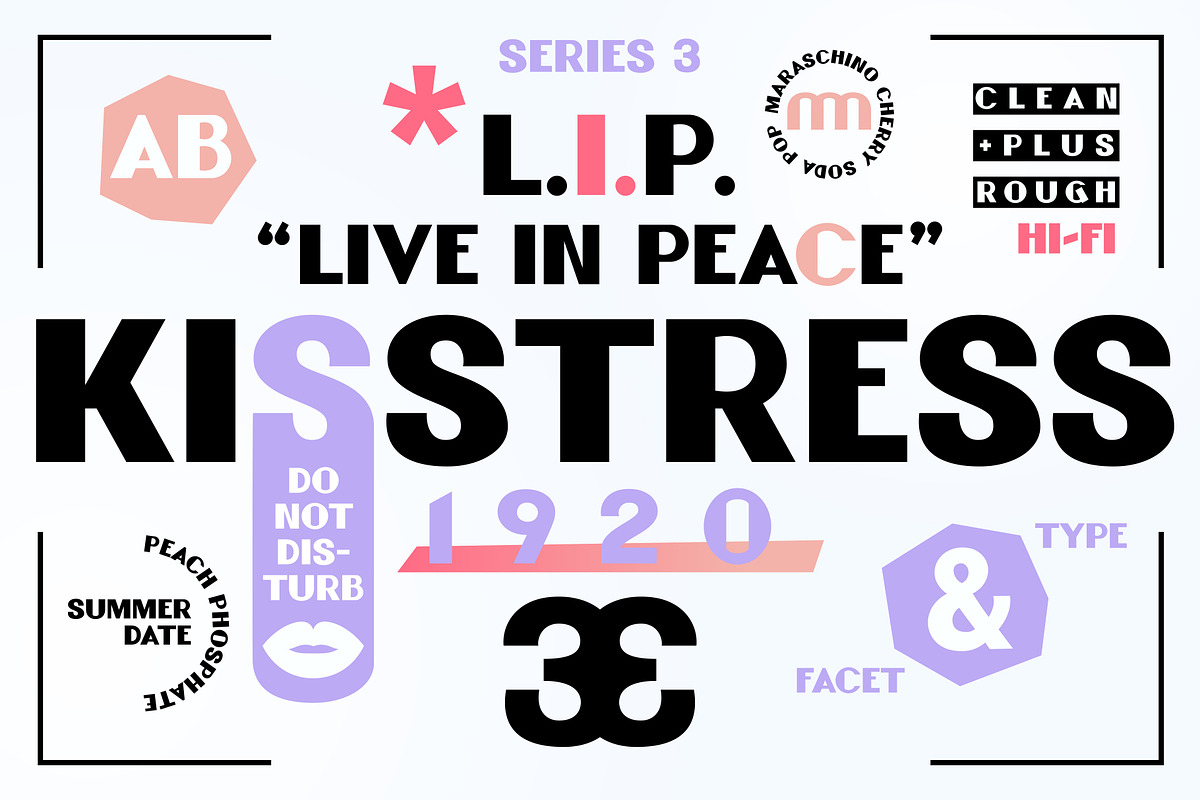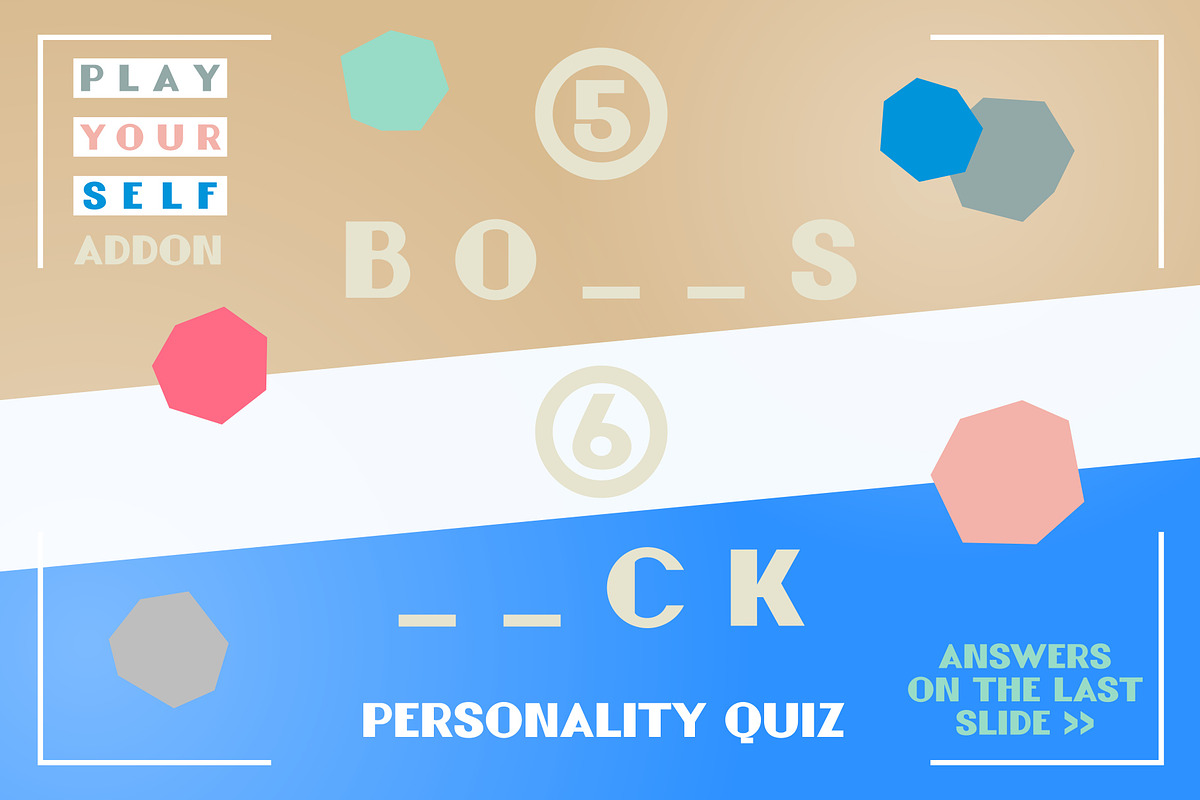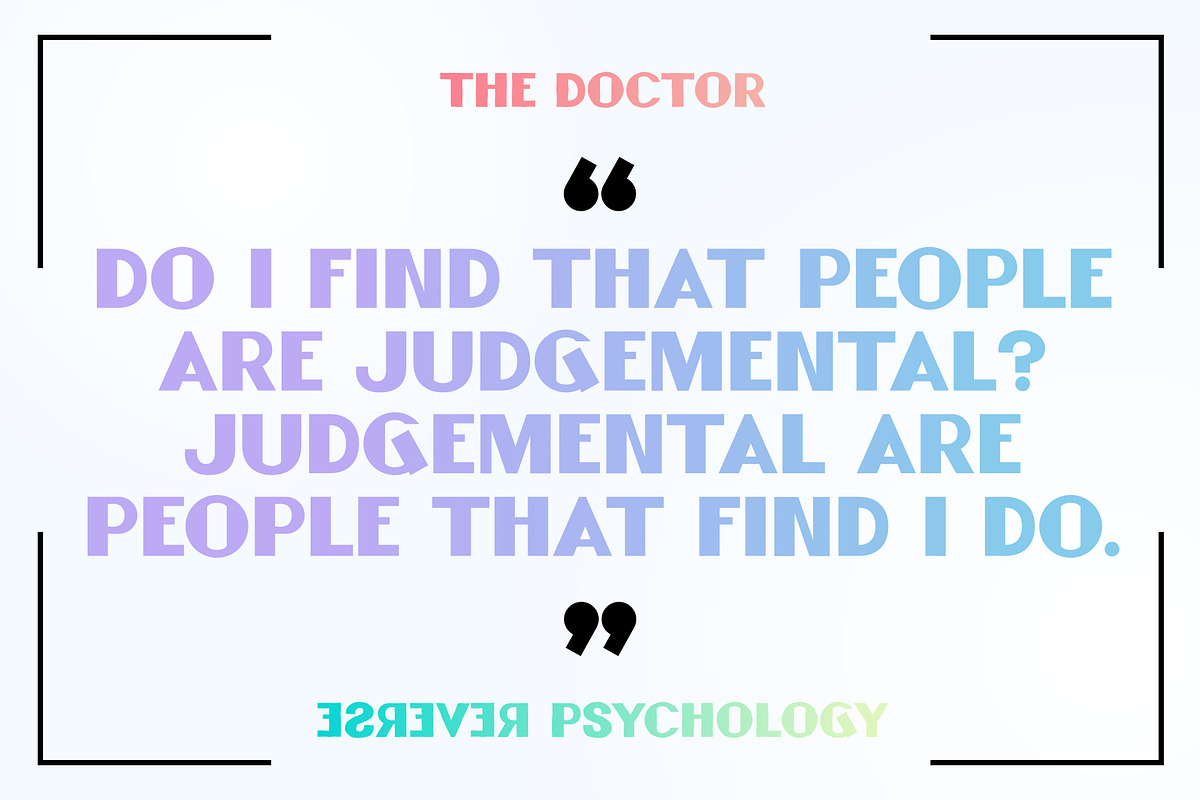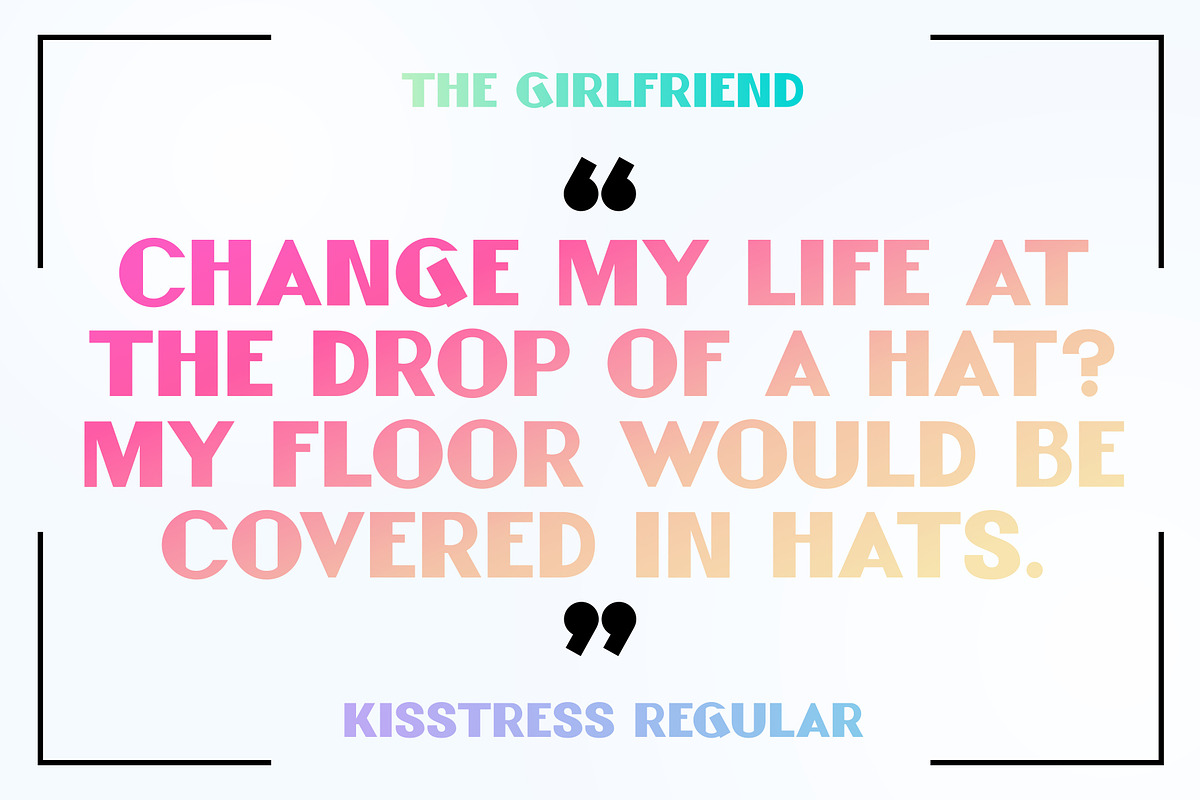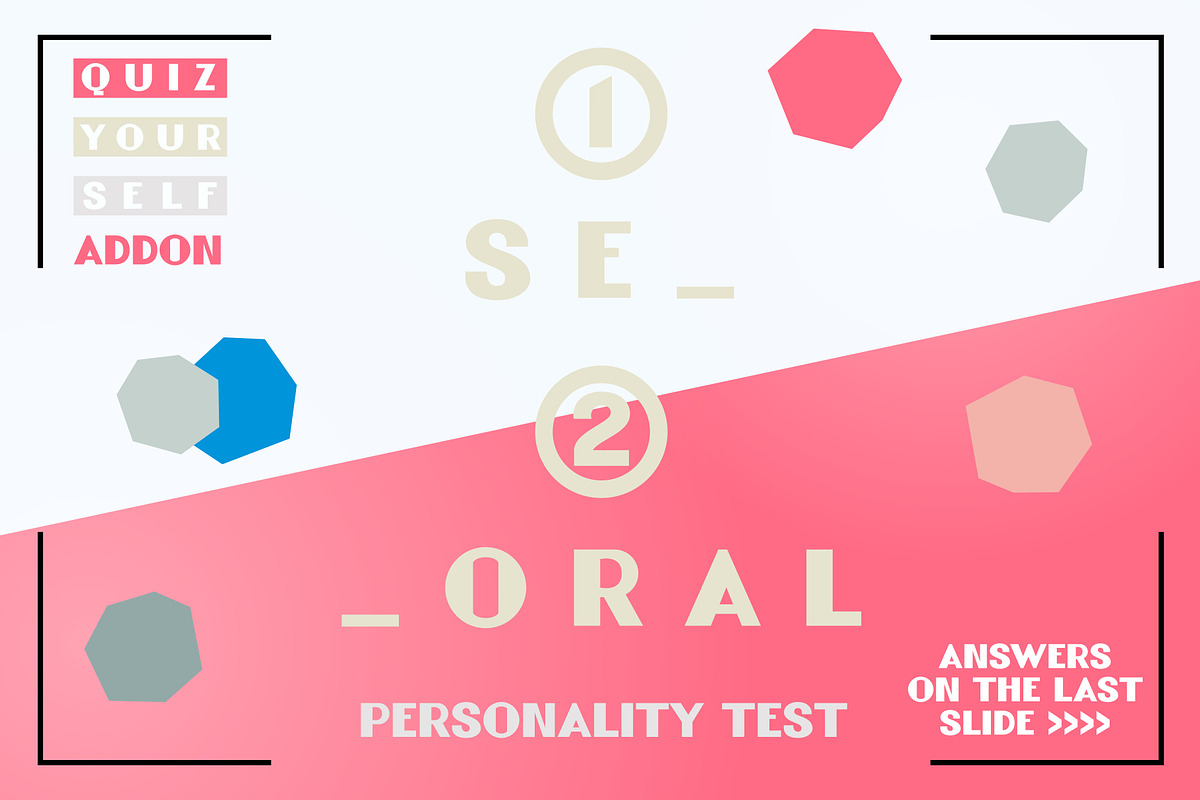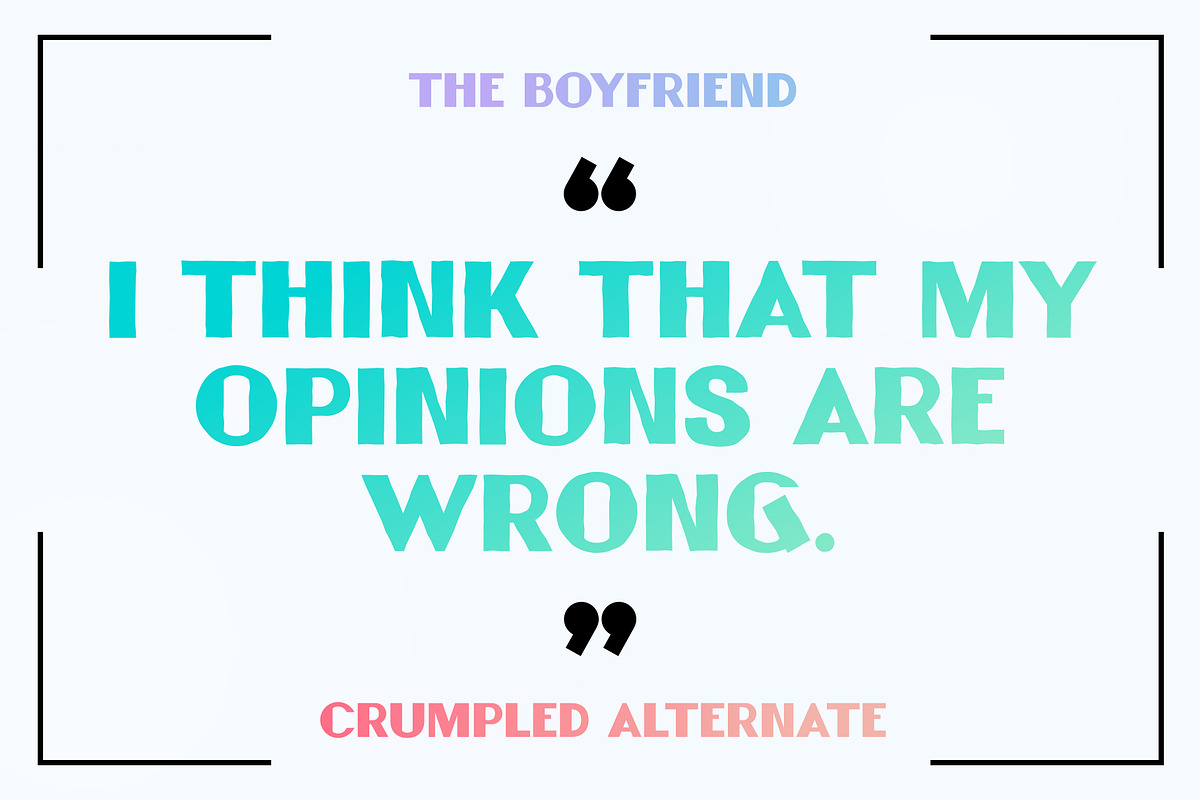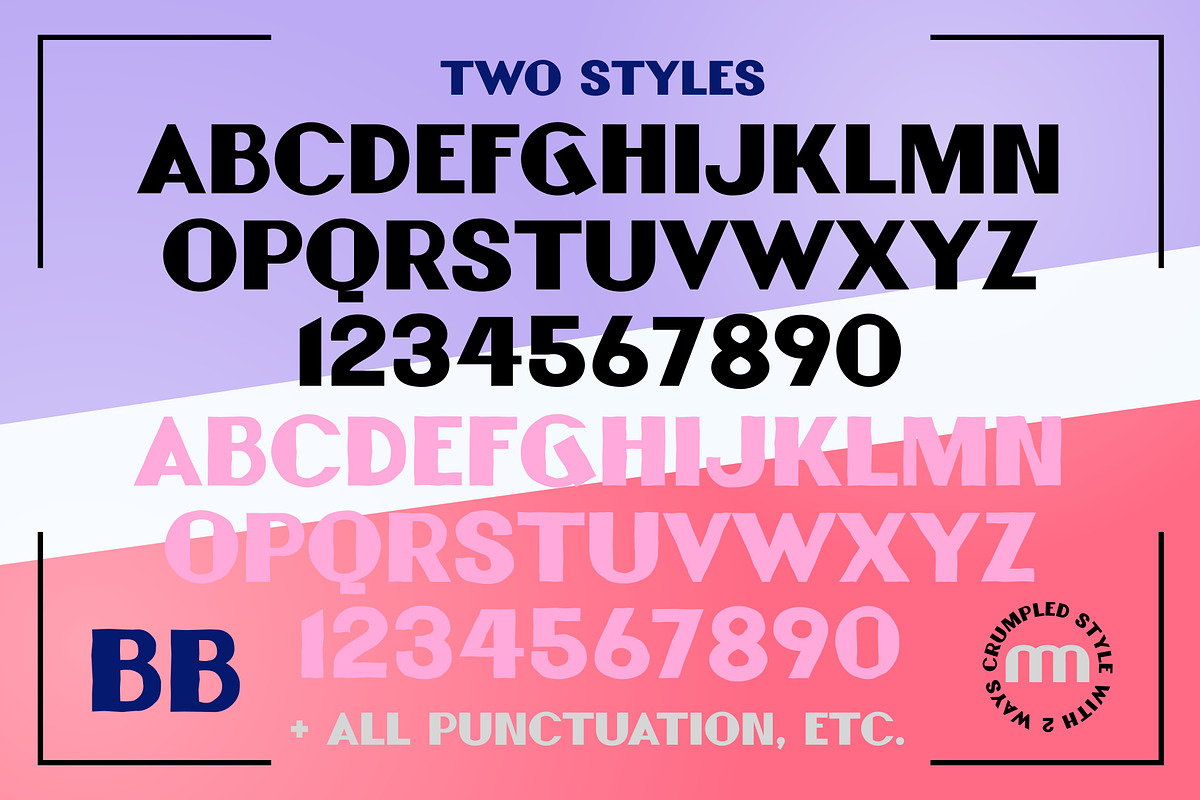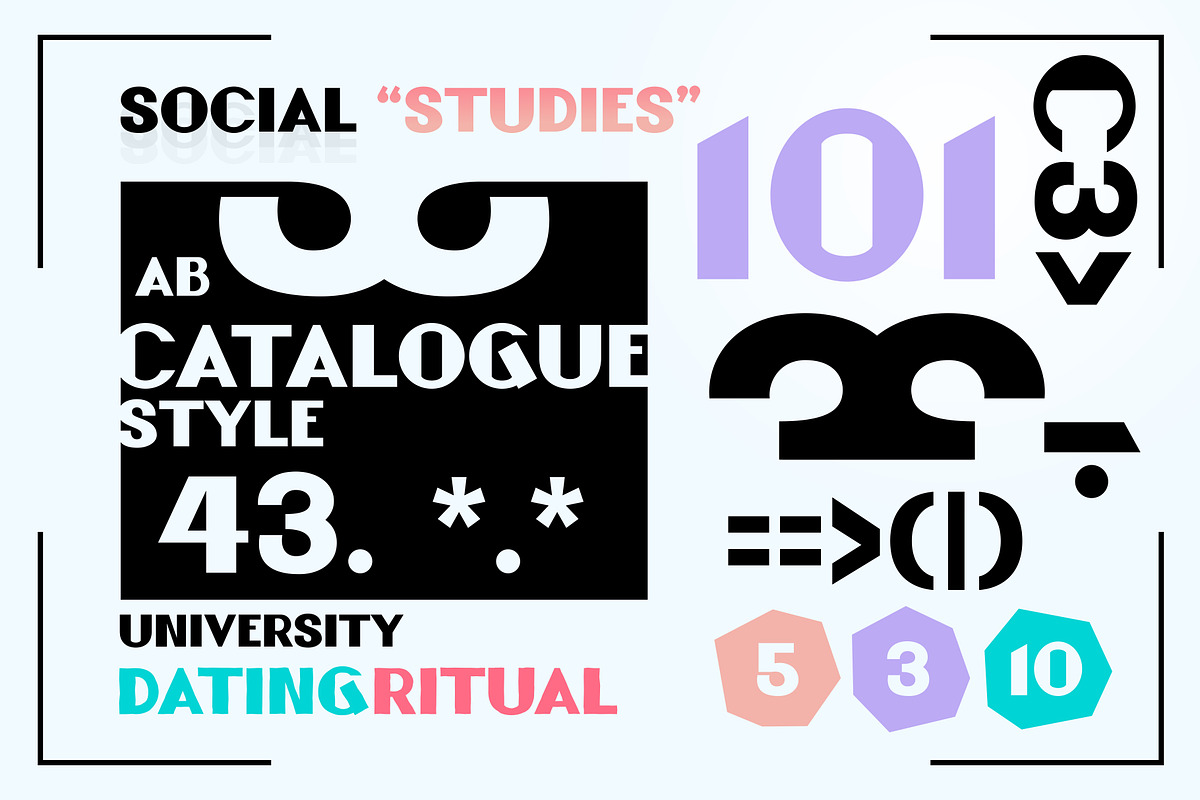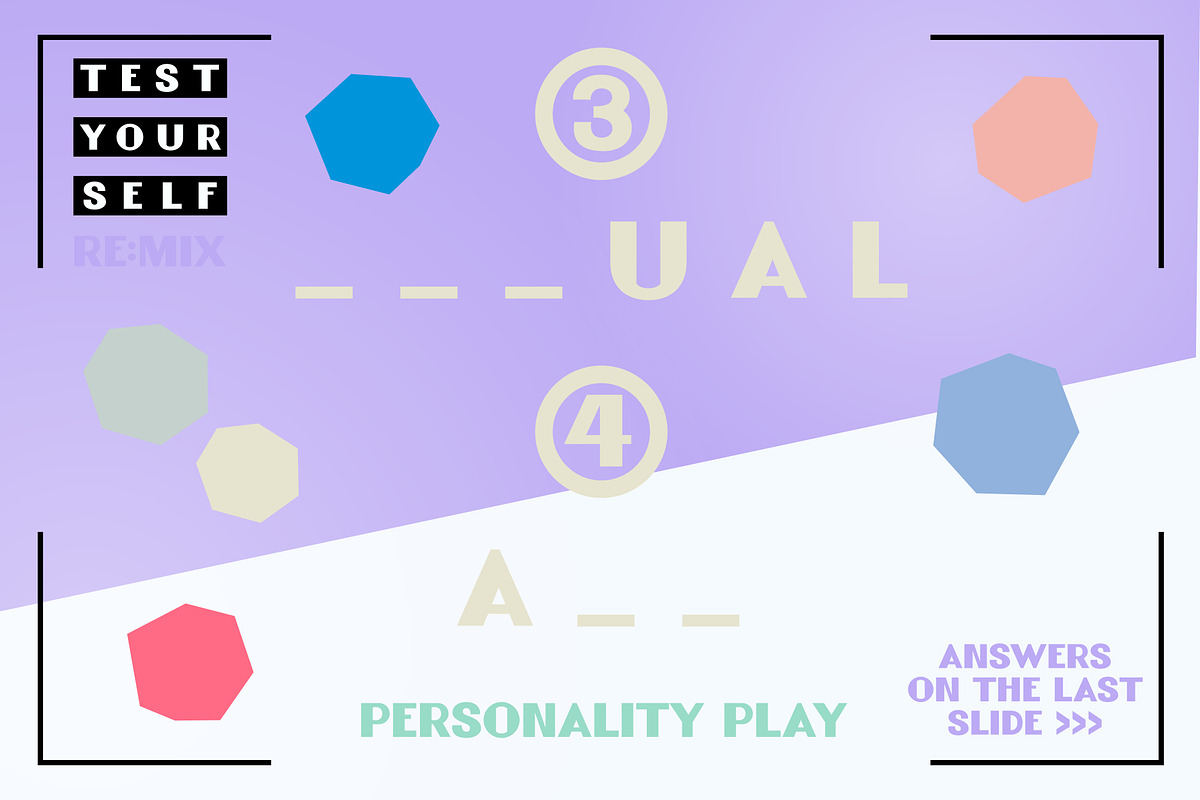
Kisstress | Retro Sans Serif
Open the office door for Kisstress, a studious display font with a salacious reputation, midcentury charm in modern styling - a racy wink from behind acrylic flyaway glasses.
- 2 styles: Regular and Crumpled
- Extra texture options in CAPS to conceal repetitive forms
- All punctuatipon & special characters